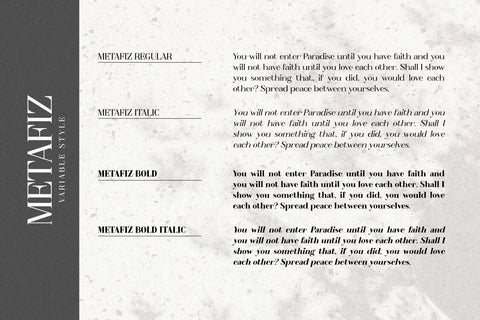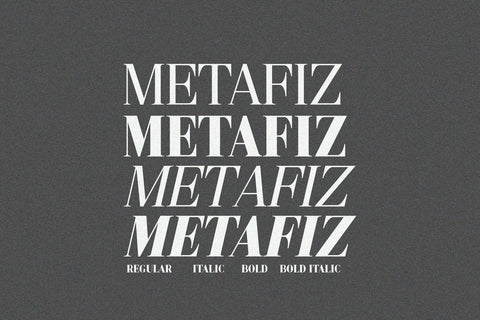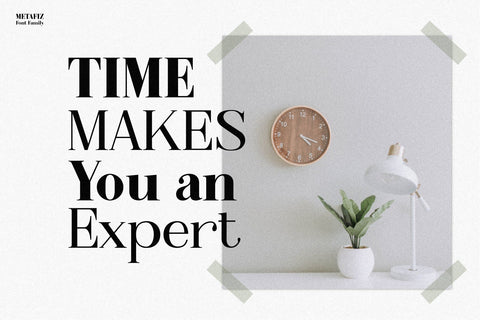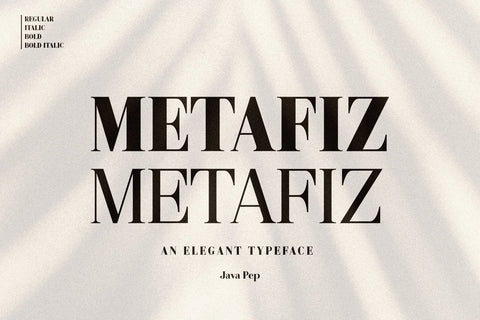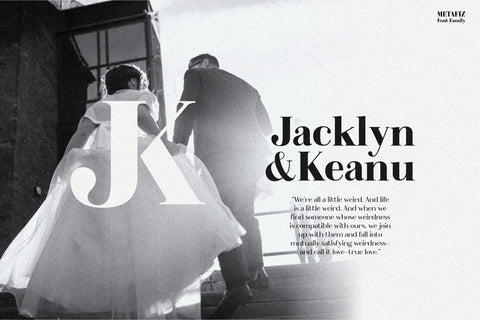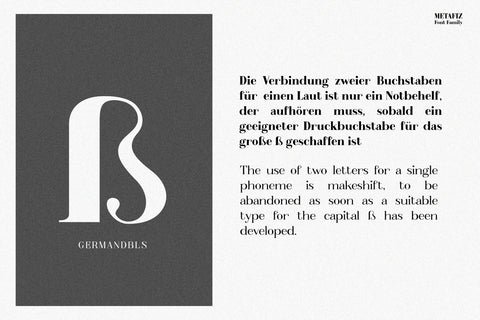
Metafiz - An elegant font
Hello, proudly present my newest serif font. Metafiz is an elegant typeface that presenting standout, classy, sophisticated, and outstanding purpose. Metafiz comes with 4 variable styles regular, italic, bold, and bold italic. Don't worry about the features, Metafiz completed with uppercase & lowercase, numeral, punctuations, and multilingual that support 17 languages.